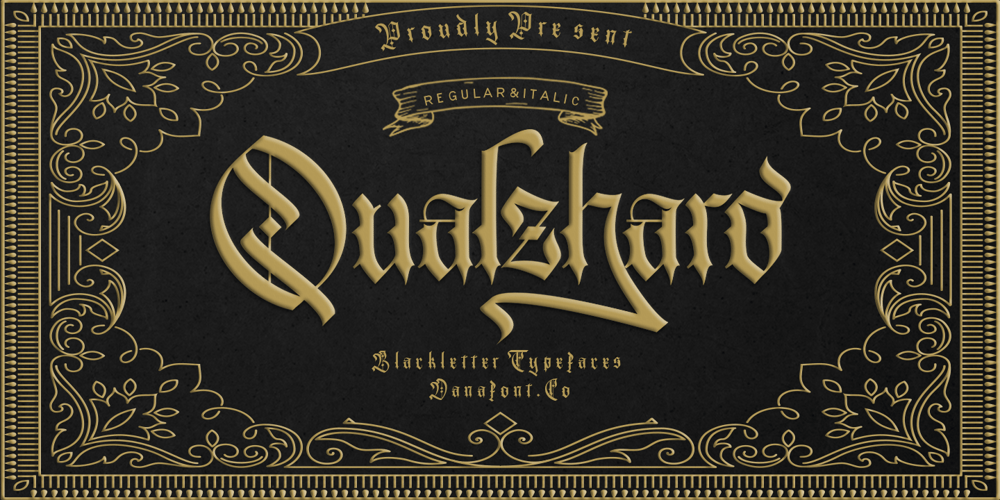
Qualzharo
Qualzharo font
Qualzharo Font Family was designed by Muhammad Alkaf and published by Muhammad Alkaf. Qualzharo contains 2 styles and family package options. The Qualzharo Blackletter font Duo Version Regular and Italic comes with beautiful alternate characters. Designed to deliver stylish elegance. Classic style is very suitable to be applied in various formal forms such as invitations, labels, menus, logos, fashion, make up, stationery, letterpress, romantic novels, magazines, books, greeting/wedding cards, packaging, labels and includes multiple language support.Features : Uppercase Lowercase Numeral Accent (multilingual characters) Ligature Stylistic Sets How To Access Alternate Characters:https://www.youtube.com/watch?v=Go9vacoYmBwhttps://www.youtube.com/watch?v=XzwjMkbB-wQhttps://www.youtube.com/watch?v=x1A_ilsBsGshttps://www.youtube.com/watch?v=xFlMwARHusYhttps://www.youtube.com/watch?v=NVJlZQ3EZU0 Thanks for your purchase!